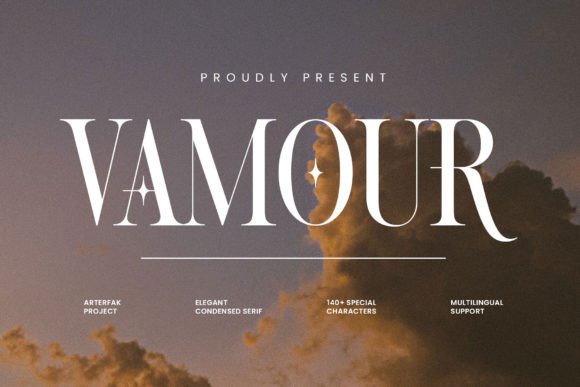
Introducing Vamour, the epitome of elegance and luxury in the world of fonts. Created by the renowned Arterfak Project, this serif font is designed to captivate and inspire. Whether you're working on a branding project, designing posters, or crafting memorable quotes, Vamour is the perfect companion.
With its condensed form and modern-classic design, Vamour effortlessly infuses sophistication into any creative endeavor. Its sleek lines and elegant curves add a touch of refinement, making your work stand out from the crowd. This font exudes timeless aesthetics that are ideal for luxury magazines, editorials, and stylish branding projects.
One of the key features that sets Vamour apart is its extensive range of stylistic alternates and ligatures. These artistic flourishes allow you to customize your typography, giving your designs a unique and personalized touch. From ornate swashes to delicate ligatures, Vamour offers endless possibilities for creative expression.
Not only does Vamour excel in aesthetics, but it also ensures seamless readability across various languages. Its multilingual support allows you to effortlessly communicate your message to a global audience. So whether you're targeting English-speaking customers or expanding into international markets, Vamour has got you covered.
But what truly sets Vamour apart is its ability to evoke emotions and create a lasting impact. Imagine the allure and intrigue it brings to your luxury brand's logo, or the elegance it adds to your wedding invitations. Vamour is more than just a font – it's a powerful tool that helps you connect with your audience on a deeper level.
In a world where first impressions matter, Vamour is your secret weapon. It commands attention, leaving a lasting impression that resonates with your target audience. So why settle for ordinary fonts when you can elevate your design game with Vamour?